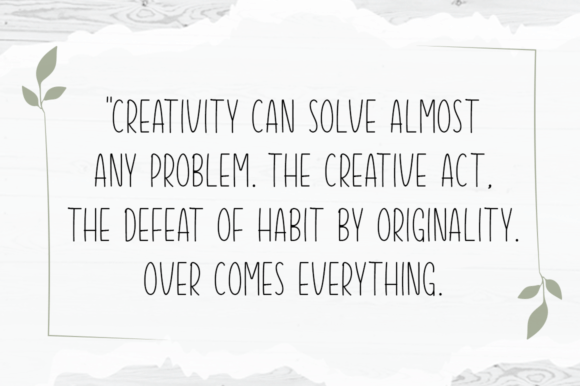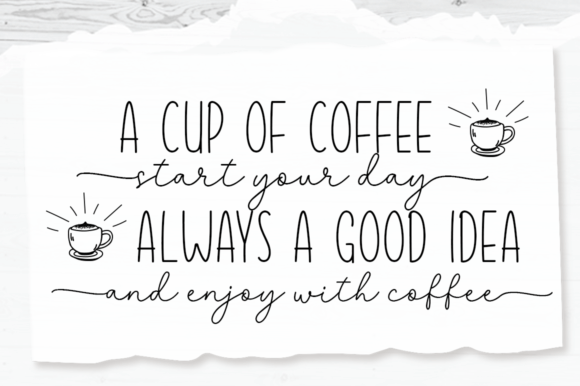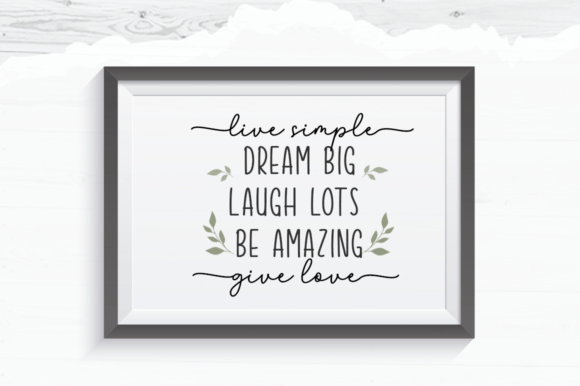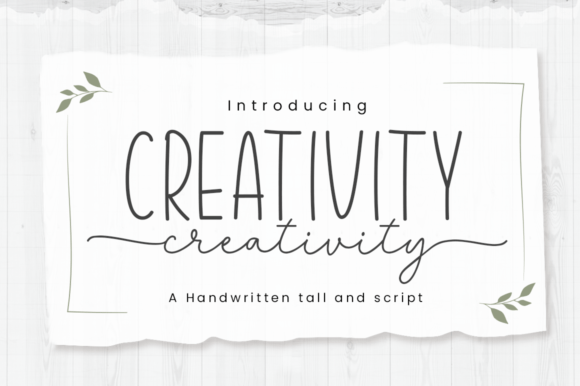
Introduction to Creativity Font
Creativity is a versatile duo handwritten font.
Key Features of Creativity Font
Why Choose Creativity Font?
Creativity Font offers exceptional quality and versatility, making it a valuable addition to your design toolkit. Whether you’re creating for personal projects or commercial use, Creativity Font delivers professional results.